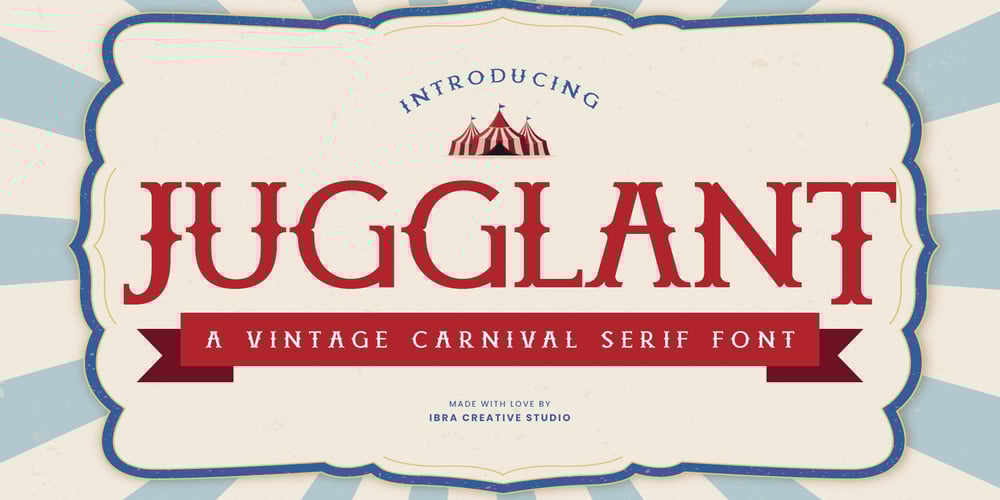
Jugglant Font Family was designed by Roisatul Azizah and published by IbraCreative. Jugglant contains 1 styles and family package options. Jugglant – A Vintage Carnival Serif FontJugglant, a vintage carnival serif font, encapsulates the whimsical charm and nostalgic allure of classic circus aesthetics. With its playful yet meticulously crafted letterforms, Jugglant evokes a sense of joyous celebration and retro flair. The serifs dance with a delightful rhythm, reminiscent of a masterful juggler’s precision, lending a unique character to each character. The font’s vintage-inspired design transports you to the golden era of carnival posters, infusing any project with a touch of bygone merriment. Jugglant’s warm and inviting curves, coupled with its distinctive serifs, create a visual spectacle that captures the essence of the carnival spirit, making it an ideal choice for projects seeking a blend of nostalgia and spirited festivity.Jugglant is perfect for branding projects, logo, wedding designs, social media posts, advertisements, product packaging, product designs, label, photography, watermark, invitation, stationery, game, fashion and any projects.Fonts include multilingual support for; Afrikaans, Albanian, Czech, Danish, Dutch, English, Estonian, Finnish, French, German, Hungarian, Italian, Latvian, Lithuanian, Norwegian, Polish, Portuguese, Slovak, Slovenian, Spanish, Swedish.